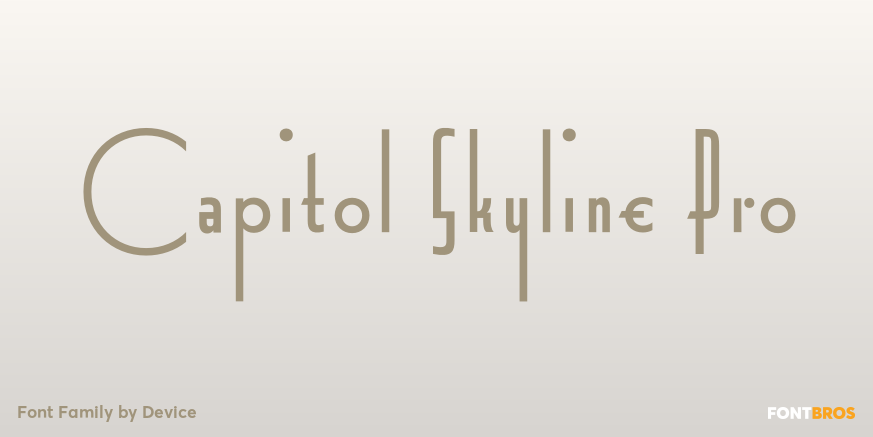
Capitol Skyline Pro
About Capitol Skyline Pro
DF Capitol features two faces, DF Capitol Skyline and DF Capitol Capitals (a multi-weight all-caps compliment) that epitomise Streamline Moderne. Strong geometry and large, open counters with heavily condensed verticals and a succession of contextual…